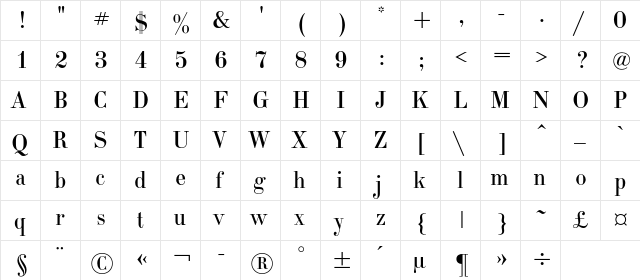
ElizabethC Regular
Design Context for ElizabethC Typeface
ElizabethC is a composed and adaptable typeface that performs quietly and consistently across a wide range of design contexts.